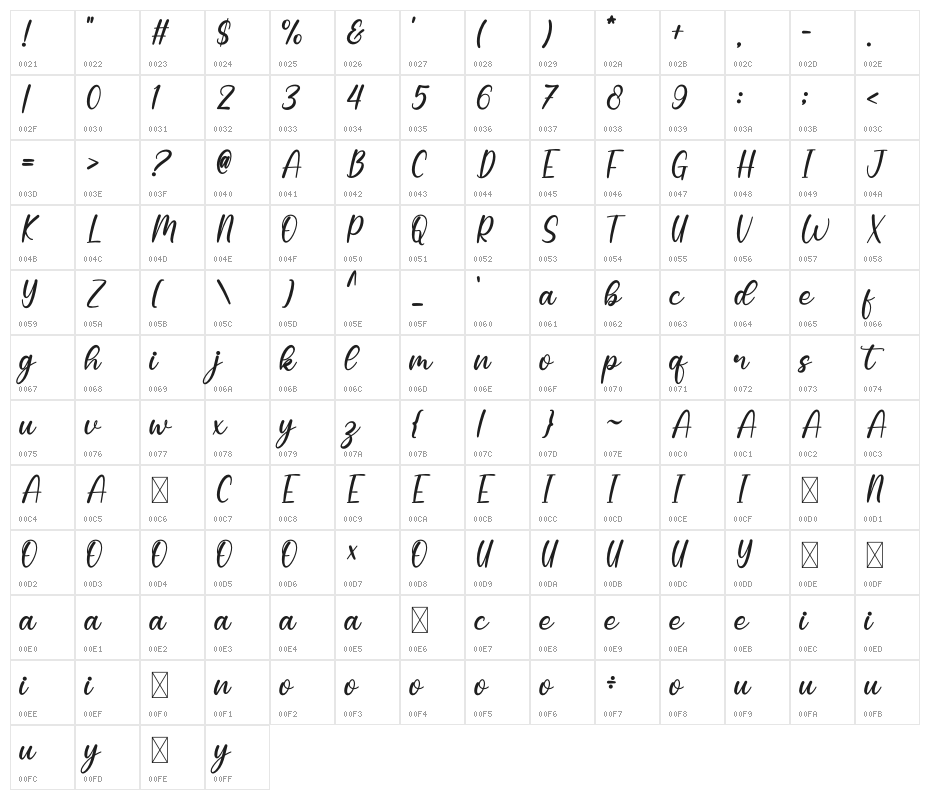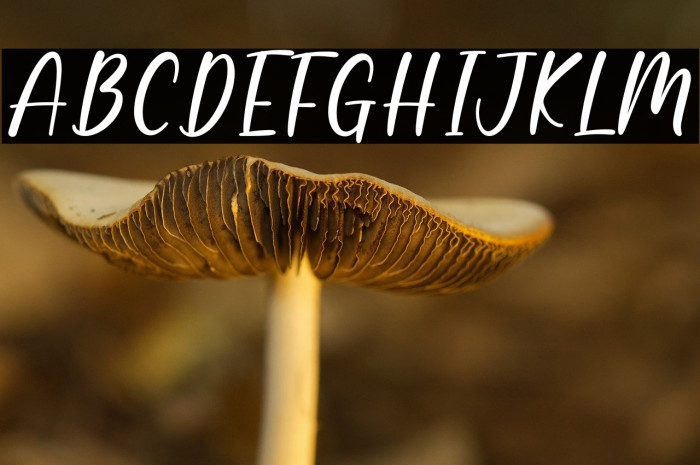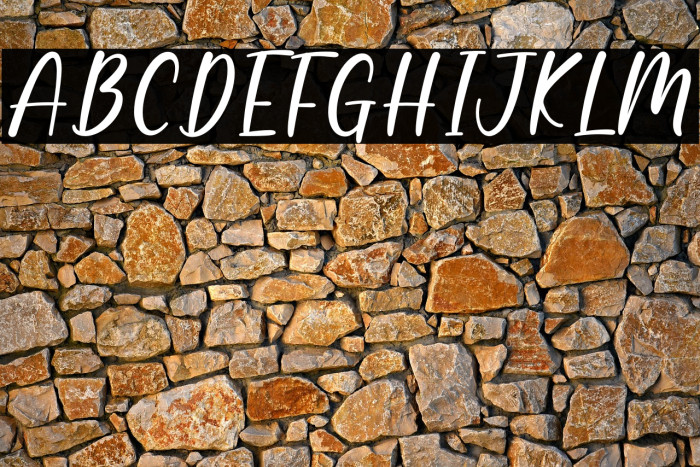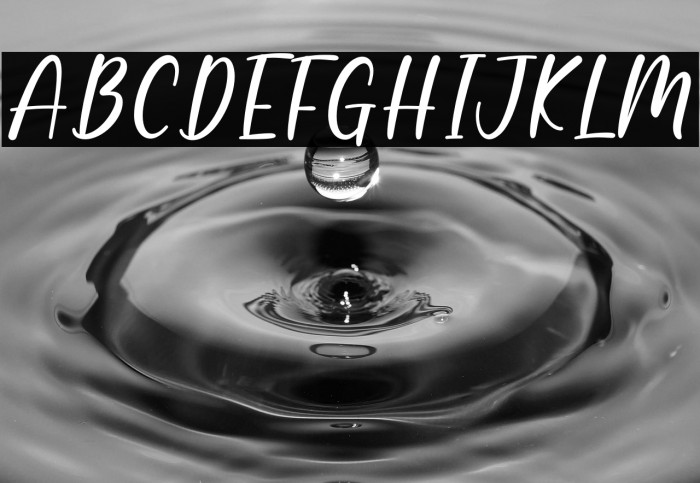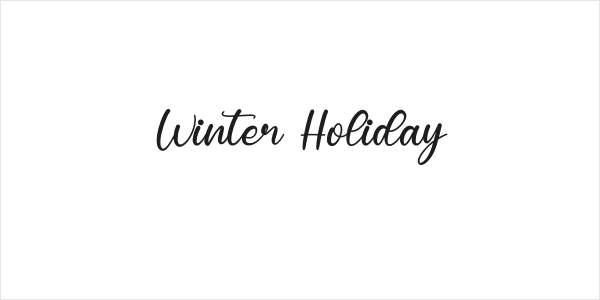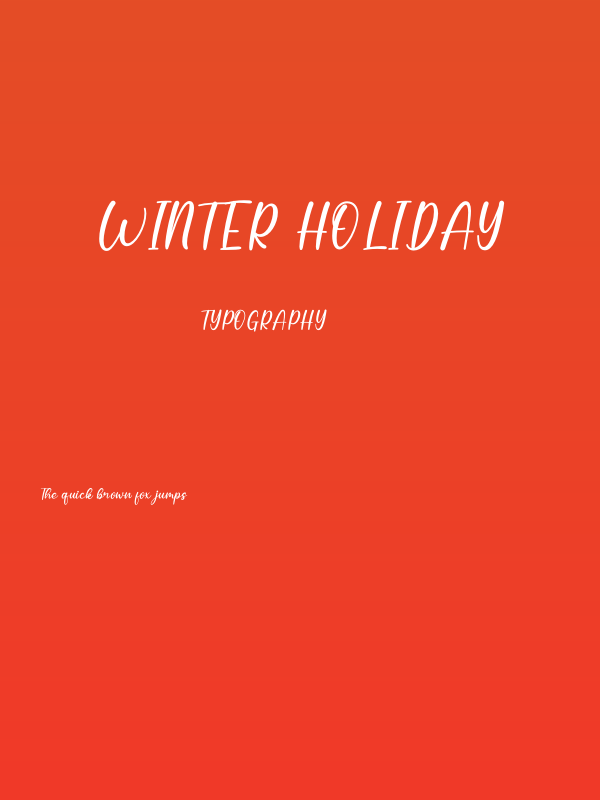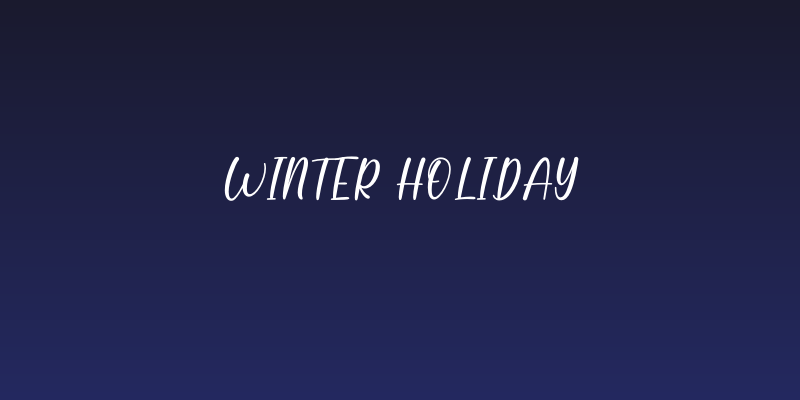
Winter Holiday Font
Winter Holiday Description
A playful and flowing script font with a handwritten style, featuring smooth curves and a casual elegance.
| Proposed Projects | Greeting cards, invitations, personal branding. |